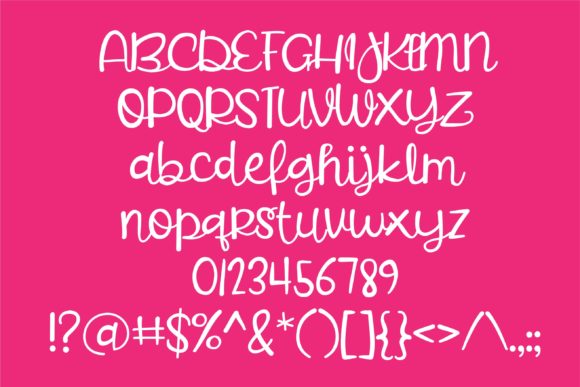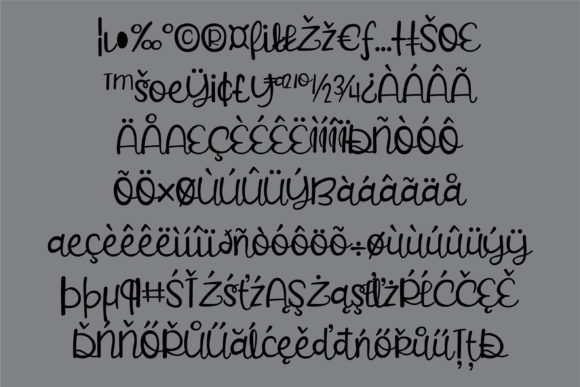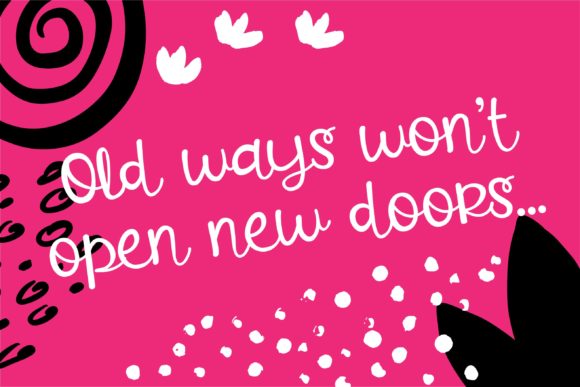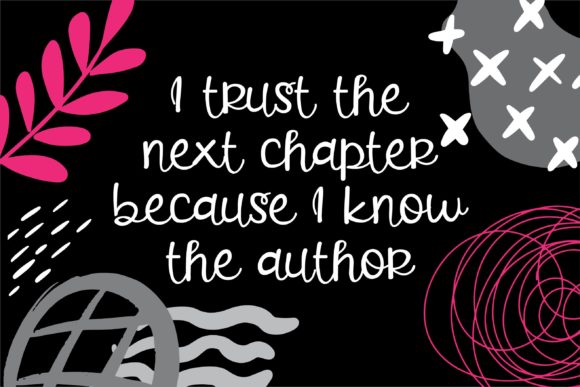
HomeScript FontsOverjealous Font Script Fonts Overjealous Font FacebookXPinterestWhatsApp Overjealous Font Poster 2 Overjealous Font Poster 3 Overjealous Font Poster 4 Overjealous Font Poster 5 About Overjealous Font Overjealous is a fun and cool handwritten font with a unique style. Get inspired by its bold feel! DOWNLOAD NOW People also explored Jalsony Font Belantica Font Black Cats Font Chocogom Font Meetha Font Moolrys Font Carbon Hesgaki Font Kobayashi Henrietta Font 377 0 TagsOverjealous Font Previous articleOctober Days FontNext articleHoneypuff Font LEAVE A REPLY Cancel reply Comment: Please enter your comment! Name:* Please enter your name here Email:* You have entered an incorrect email address! Please enter your email address here Website: Save my name, email, and website in this browser for the next time I comment. Personal Use Free Bosque Font Personal Use Free Read more about this font Fakedes Personal Use Free Read more about this font Bonhomie Personal Use Free Read more about this font Underwood Champion Personal Use Free Read more about this font BLOG Modern Sans-Serif Fonts That Brands Love in 2025 In 2025, modern sans-serif fonts remain a top choice for brands looking to project clarity, professionalism, and... The 10 Best Handwriting Fonts to Add Personality to Your Designs Top 10 Handwritten Fonts That Elevate Your Designs To increase your work productivity, choose the most readable fonts.